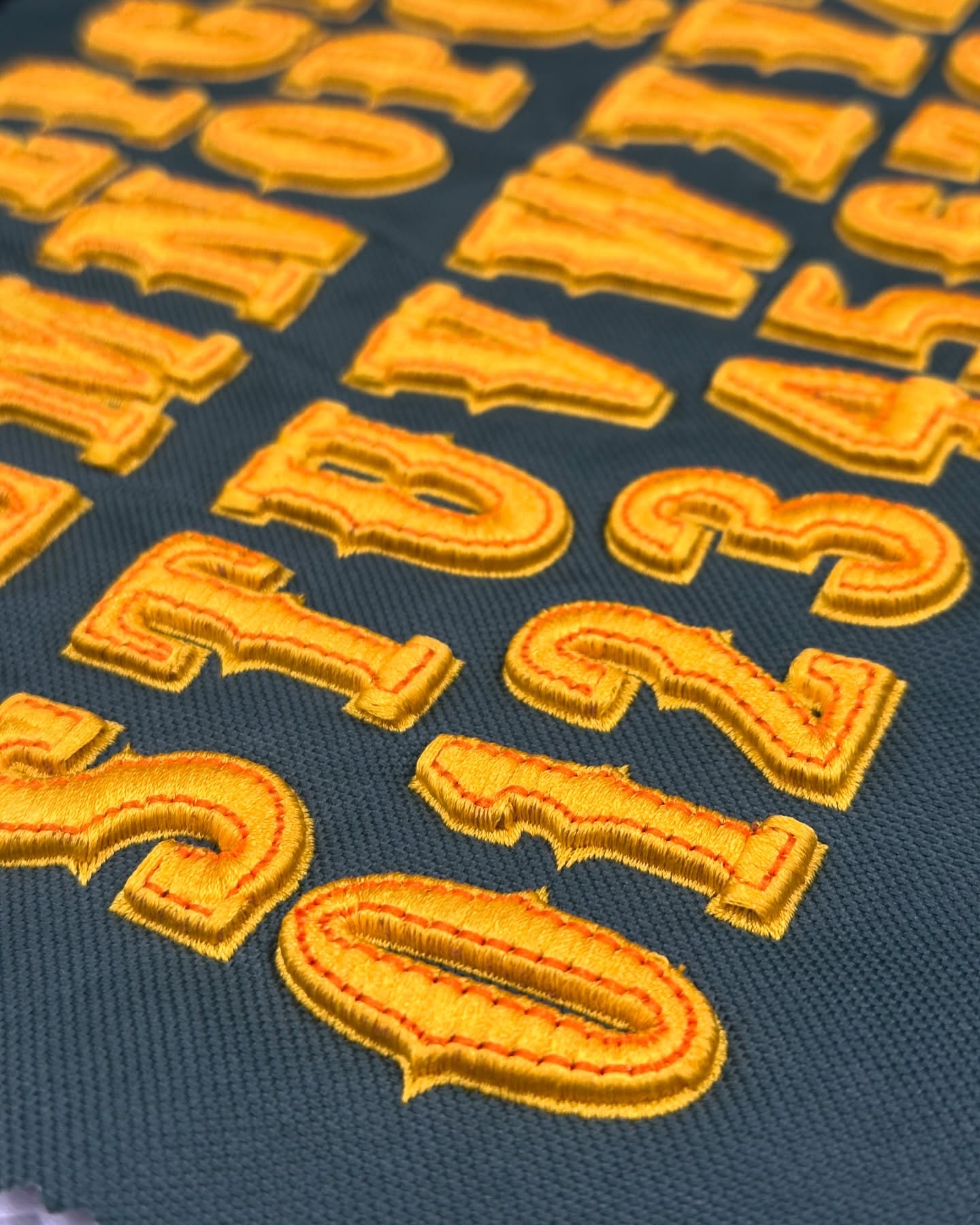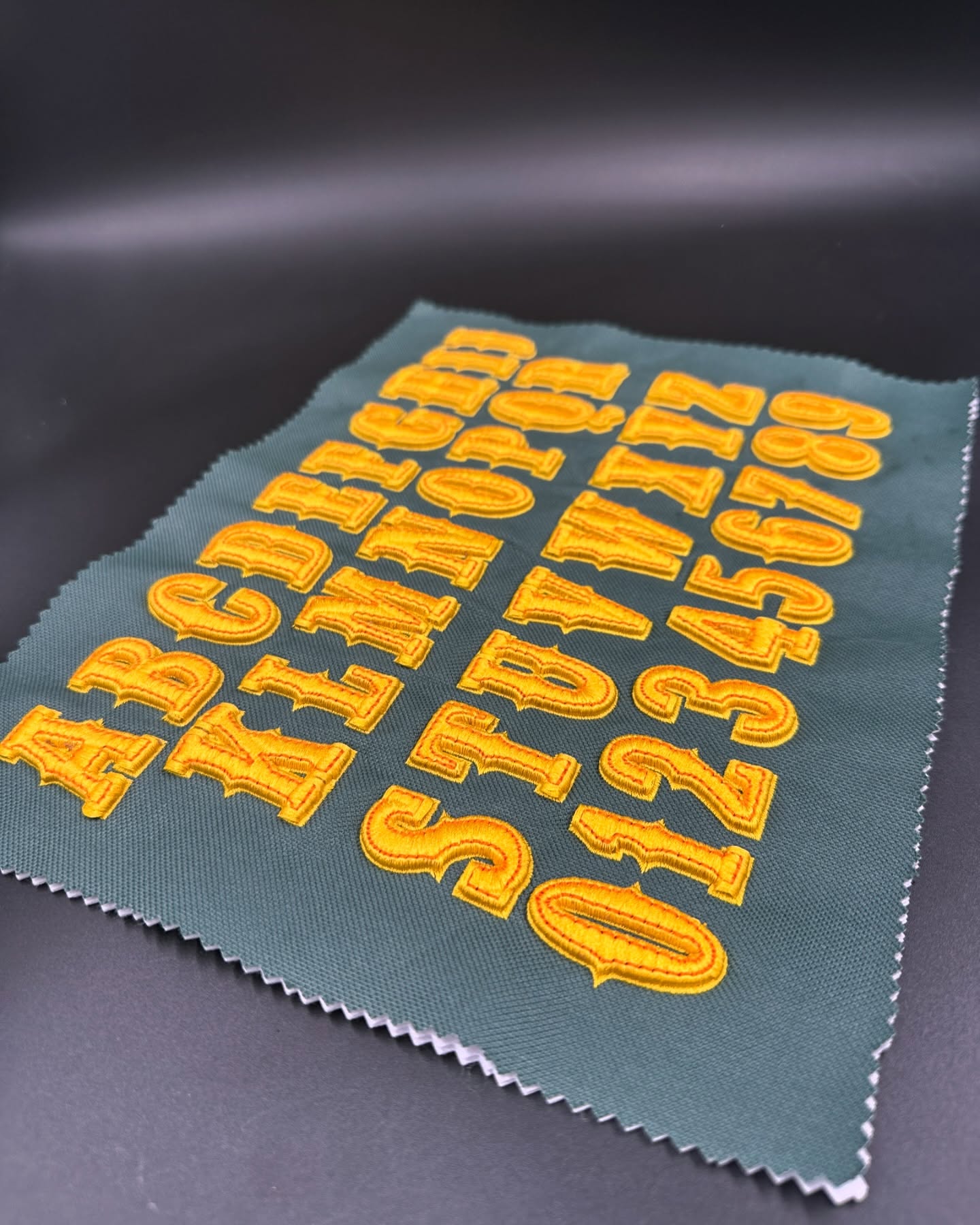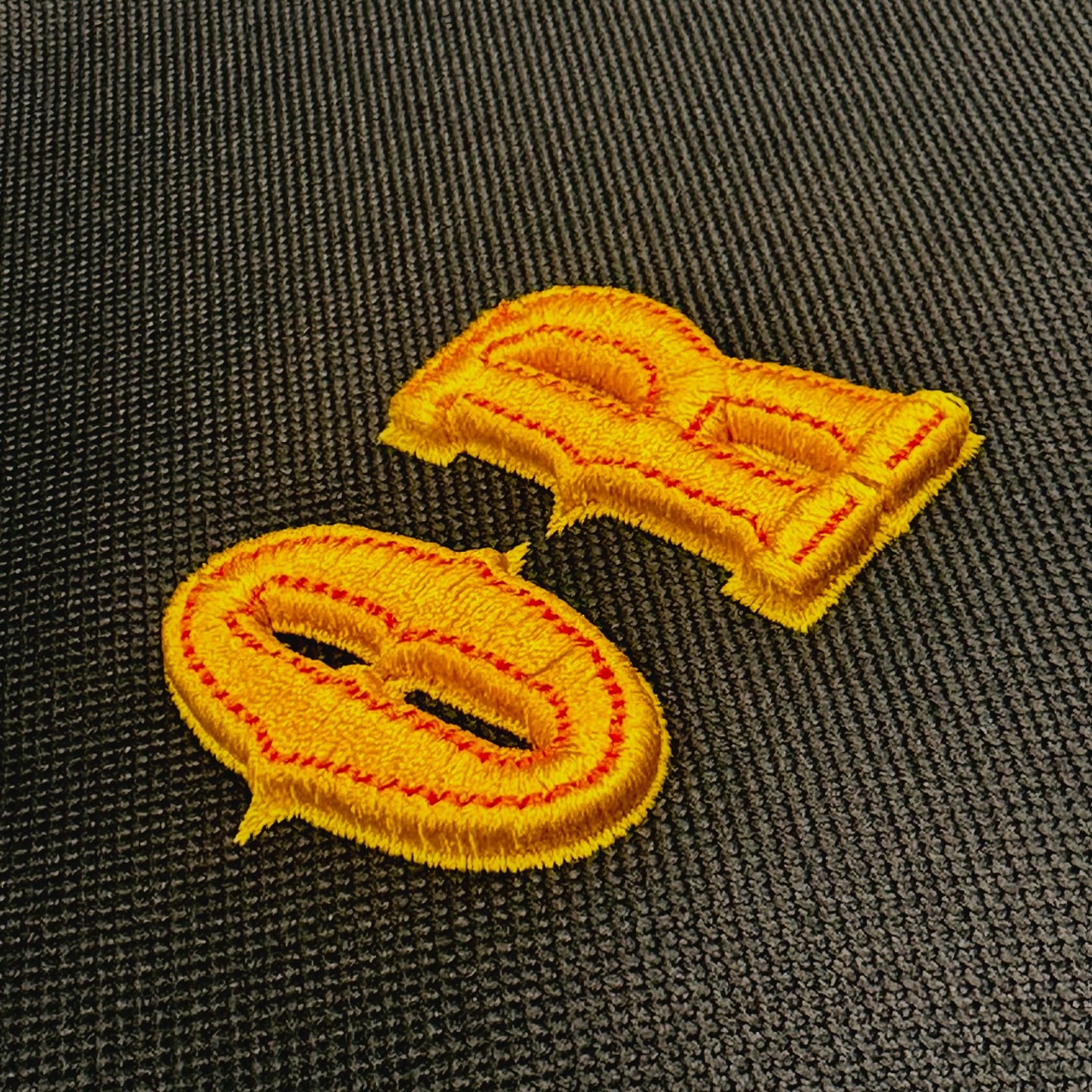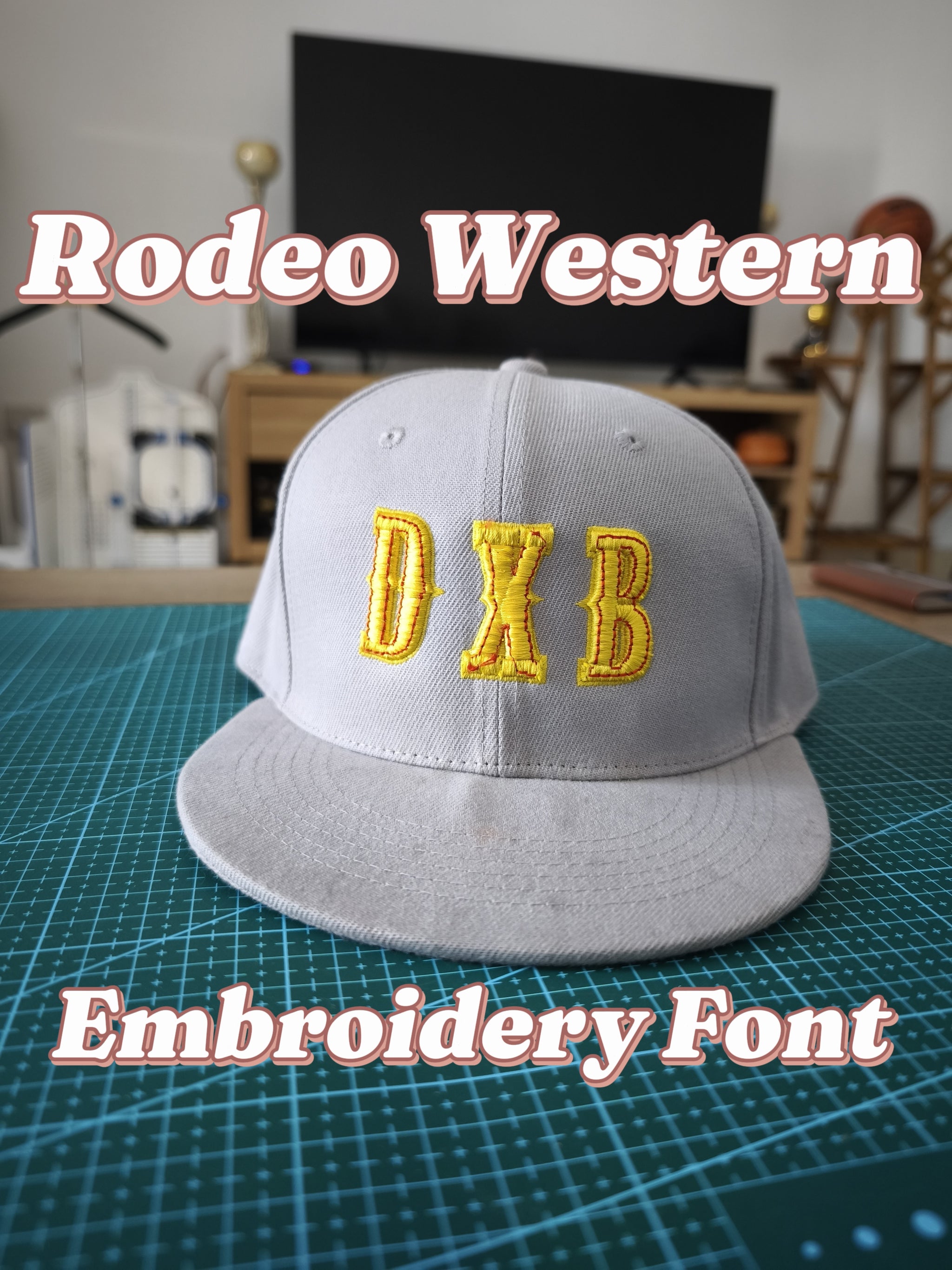
Western Rodeo Embroidery Font – Bold Vintage Letters & Numbers
Faceted Threads: Where Letters Gleam Like Diamonds ✨
Transform ordinary text into breathtaking wearable art with our luxury Diamond Font embroidery. Inspired by the precise angles of cut gemstones, each alphabet letter and numeral is meticulously stitched with heavyweight threads, creating sharp, geometric facets that catch and reflect light.
Experience Unmatched Brilliance:
💎 Jewelry-Inspired Edge: Modern, angular stitching elevates traditional embroidery.
🛠️ Artisan Precision: Every piece is hand-guided for flawless alignment & depth.
⚡️ Crisp & Durable: Heavyweight threads ensure bold lines that last on hats, jackets, bags, denim, and premium fabrics.
🎨 Versatile Luxury: Makes a statement on streetwear, elevates blazers, or personalizes heirloom gifts.
Perfect For:
Signature monograms & luxury branding
Milestone dates & anniversary gifts
Personalized jersey numbers & statement initials
Elevating logos & creating unique keepsakes
From sleek monochrome to dazzling metallics – stitch your legacy in light.